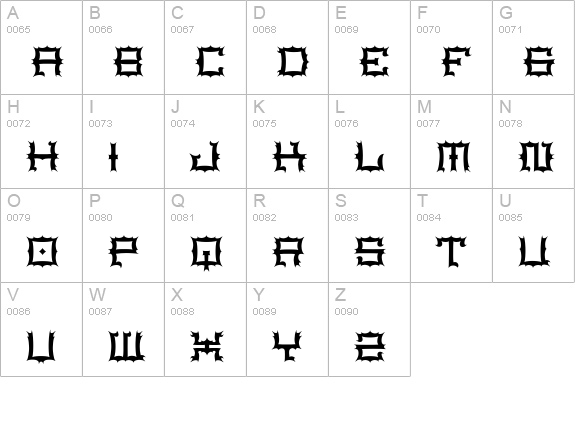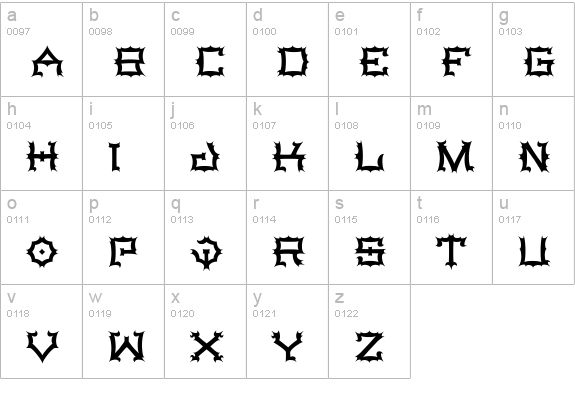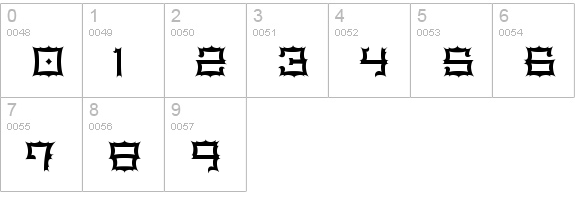
Stigmata font is a captivating and unique typeface that exudes a sense of mystery and intrigue. Its sharp, angular lines and intricate details give it a striking appearance that is sure to make a statement in any design project. Perfect for adding a touch of edginess and sophistication, Stigmata font is ideal for branding, logos, posters, and more. What's even better is that Stigmata font is available for free download at FontsMarket.com. This means you can easily access this stunning font and incorporate it into your projects without any hassle. Whether you're a seasoned designer or just starting out, Stigmata font is a must-have addition to your font collection. Download it today and let your creativity soar with this bold and distinctive typeface.